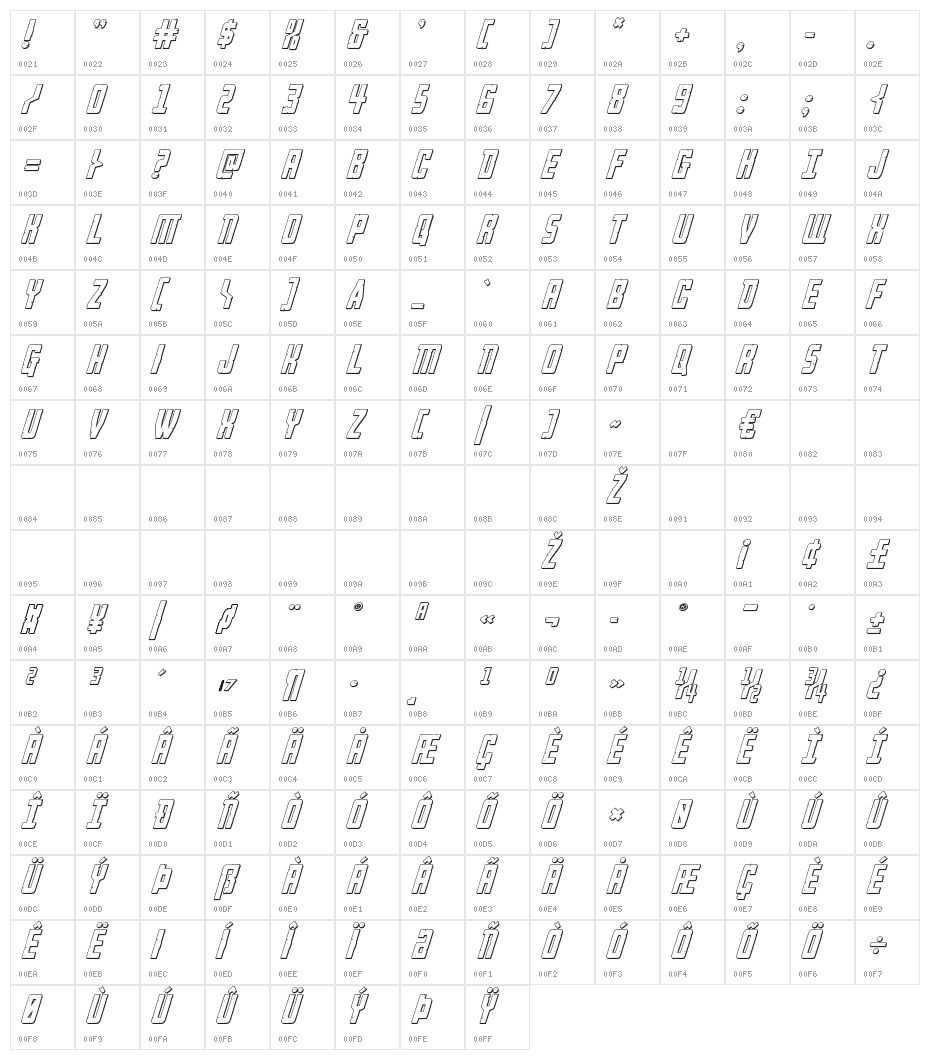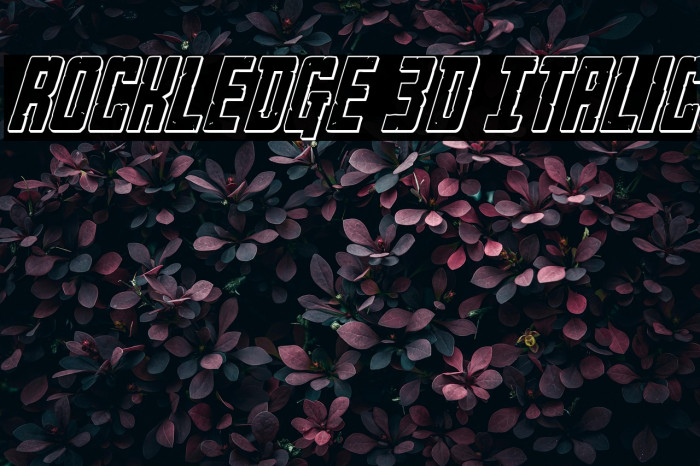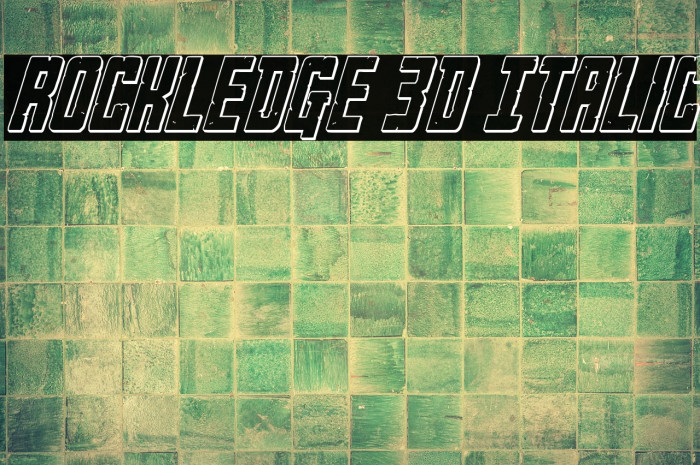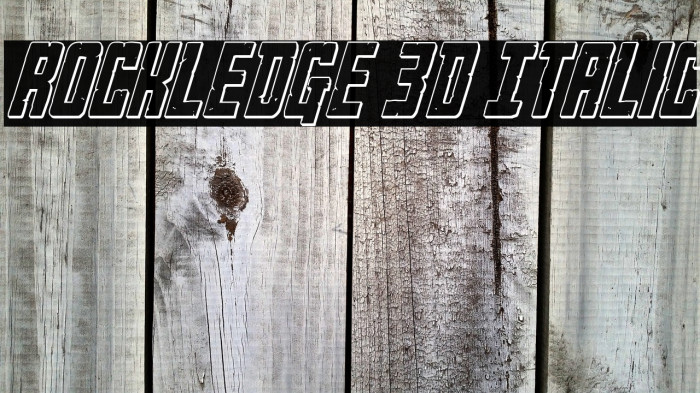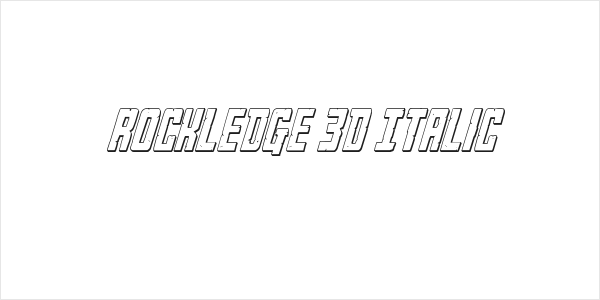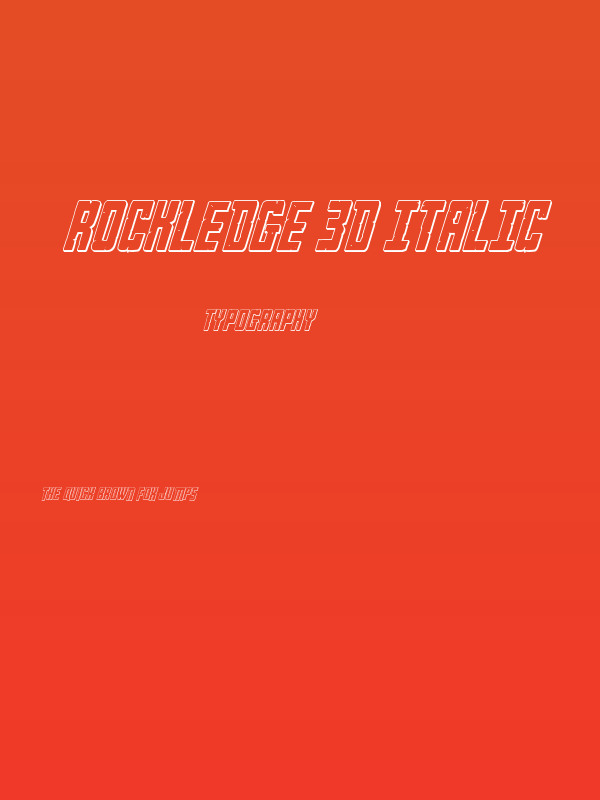
Rockledge 3D Italic Font
Rockledge 3D Italic Description
This font features a bold, three-dimensional design with a distinct italic slant. The characters are outlined with a shadow effect, giving them a dynamic and impactful appearance. The uppercase and lowercase letters maintain a consistent style, with sharp angles and clean lines that enhance readability. The numerals and special characters are designed to match the overall aesthetic, ensuring a cohesive look across all text elements. This font's unique 3D effect makes it stand out, making it ideal for eye-catching designs.